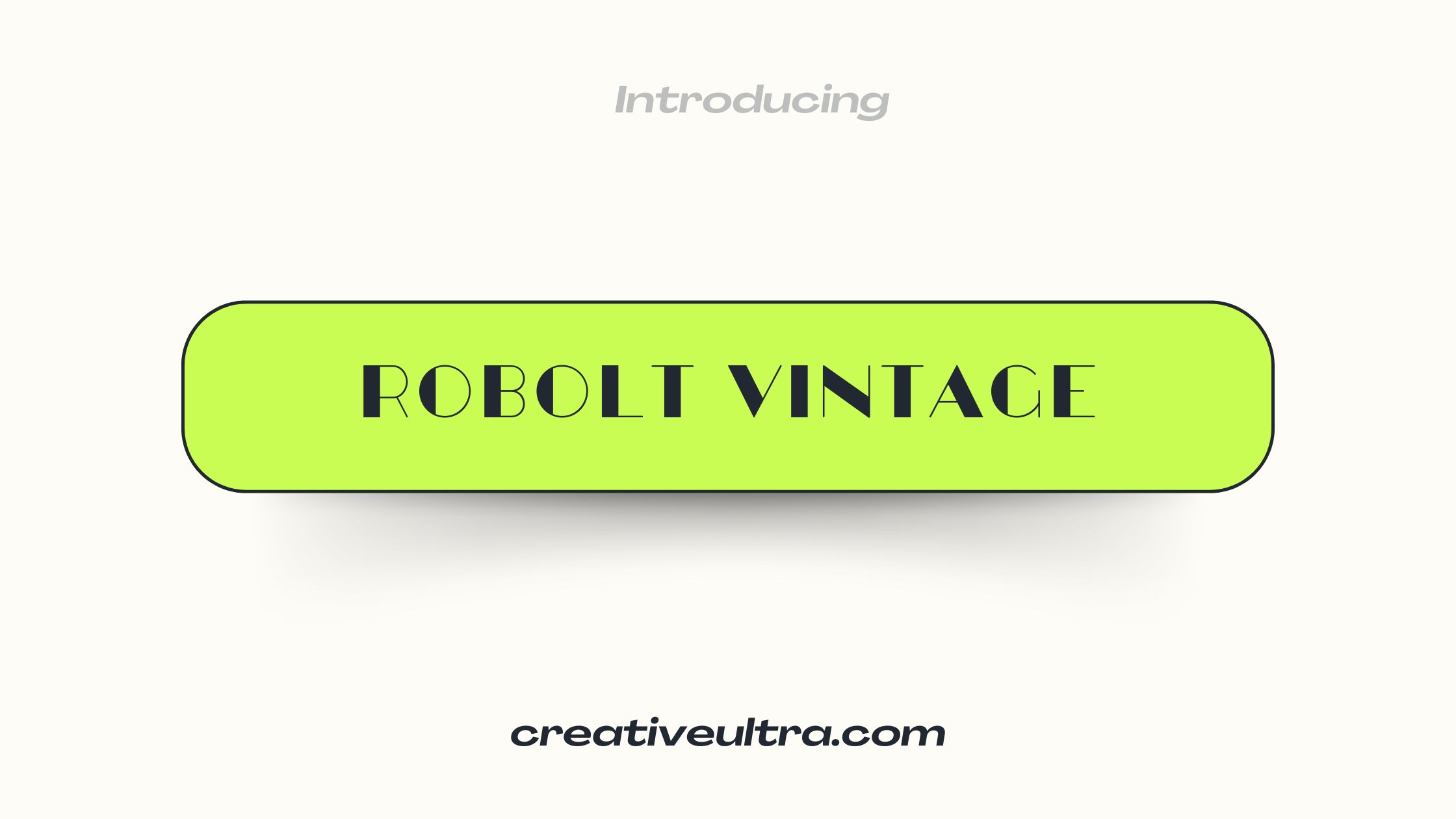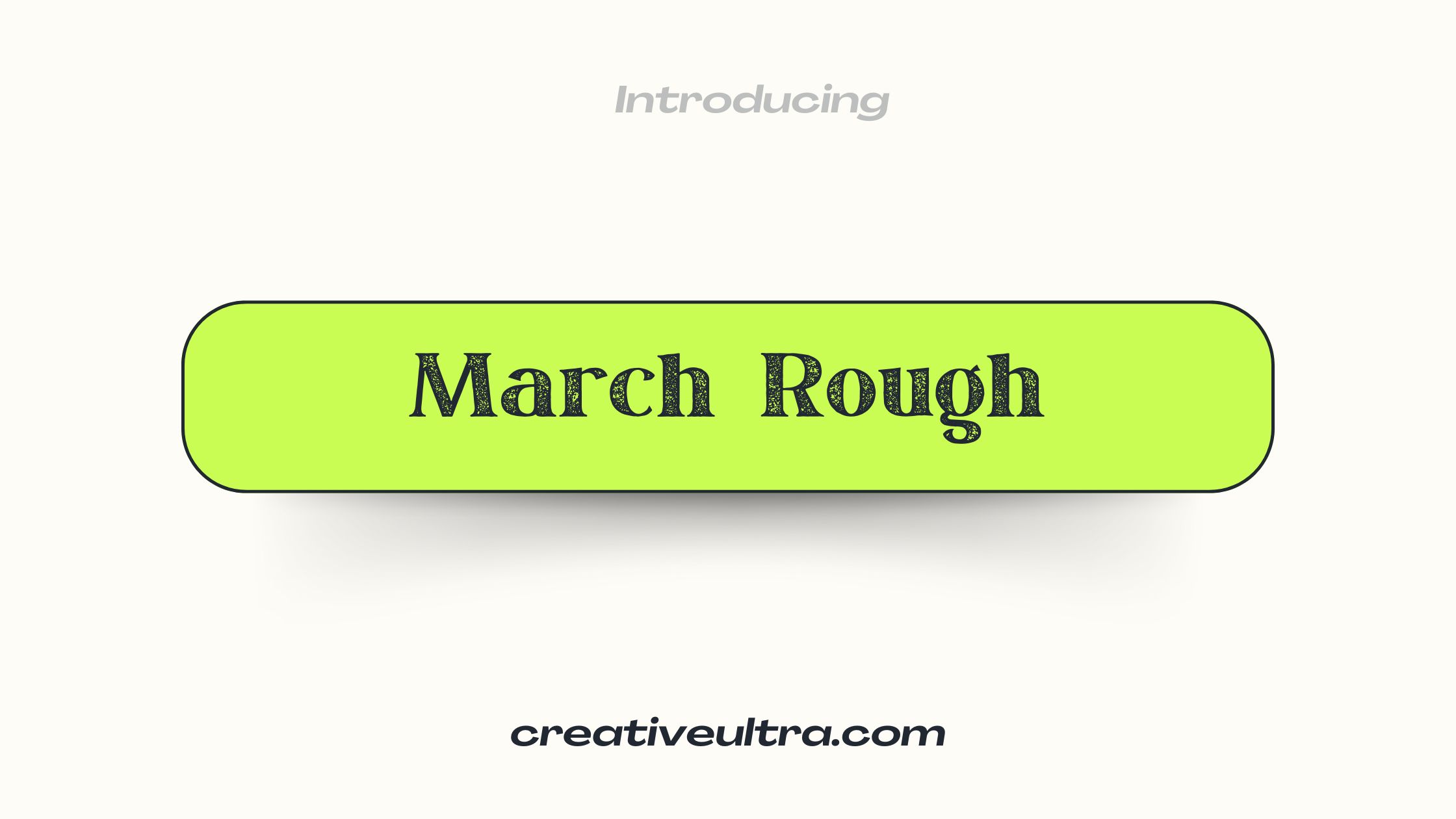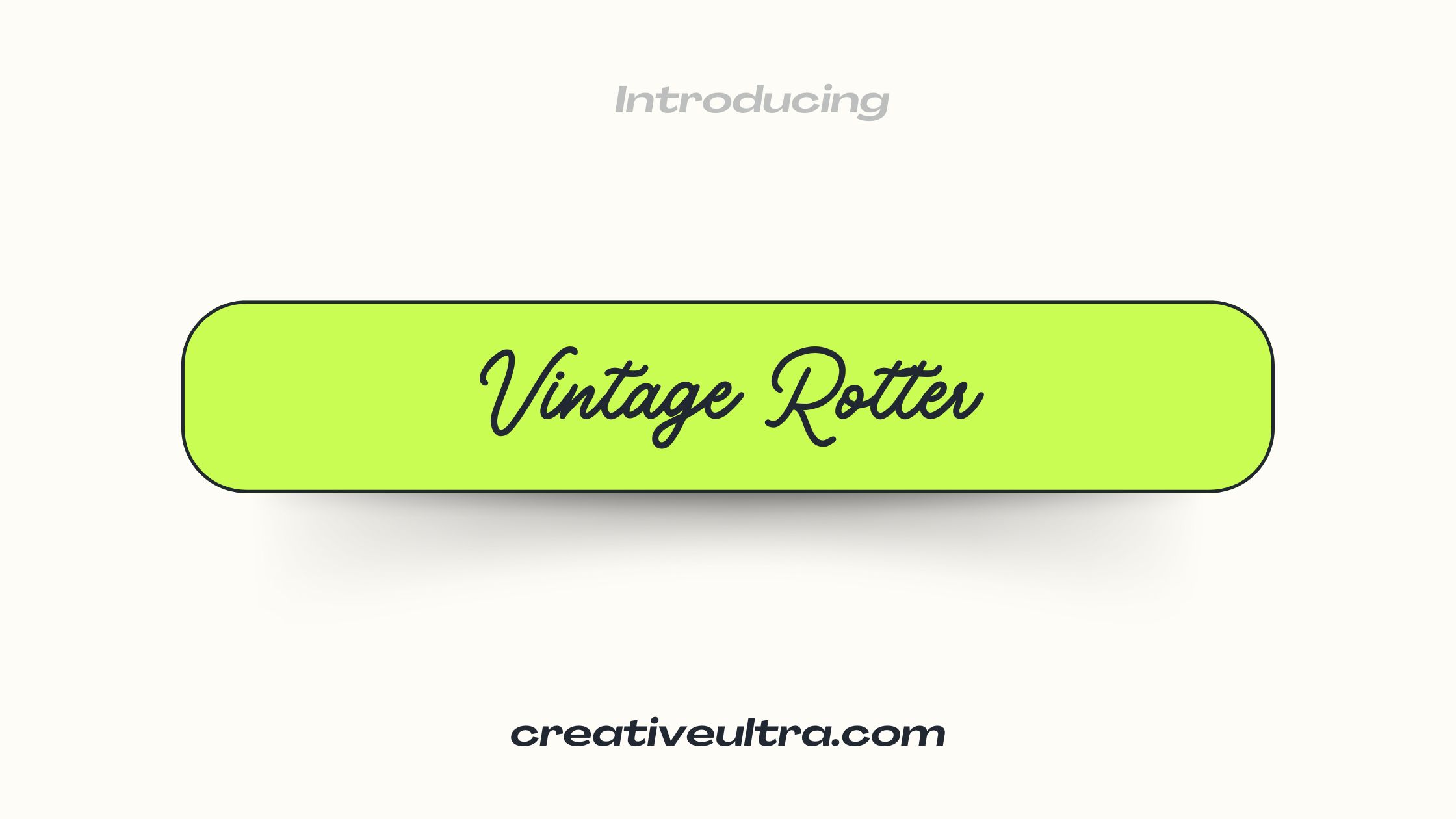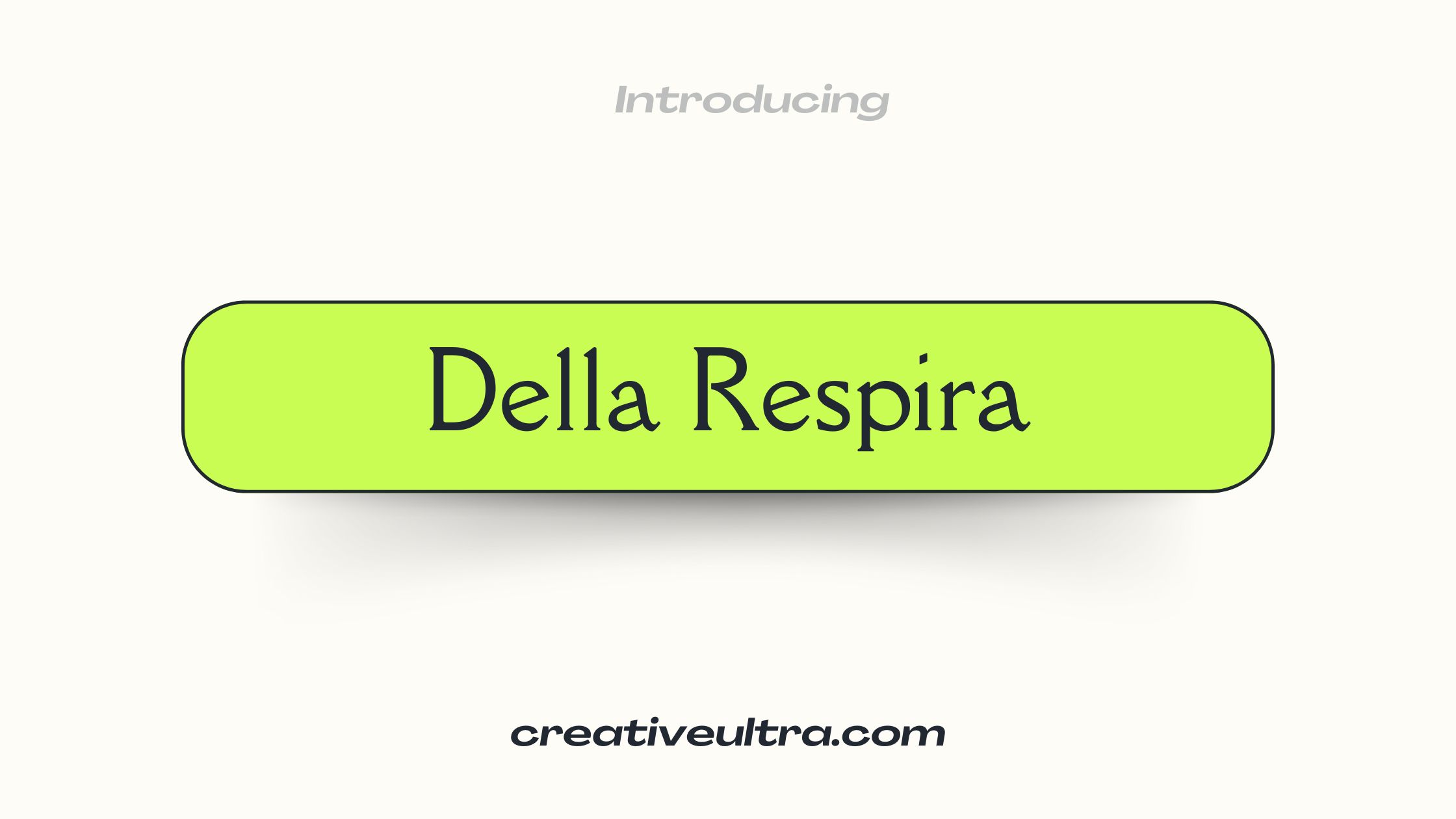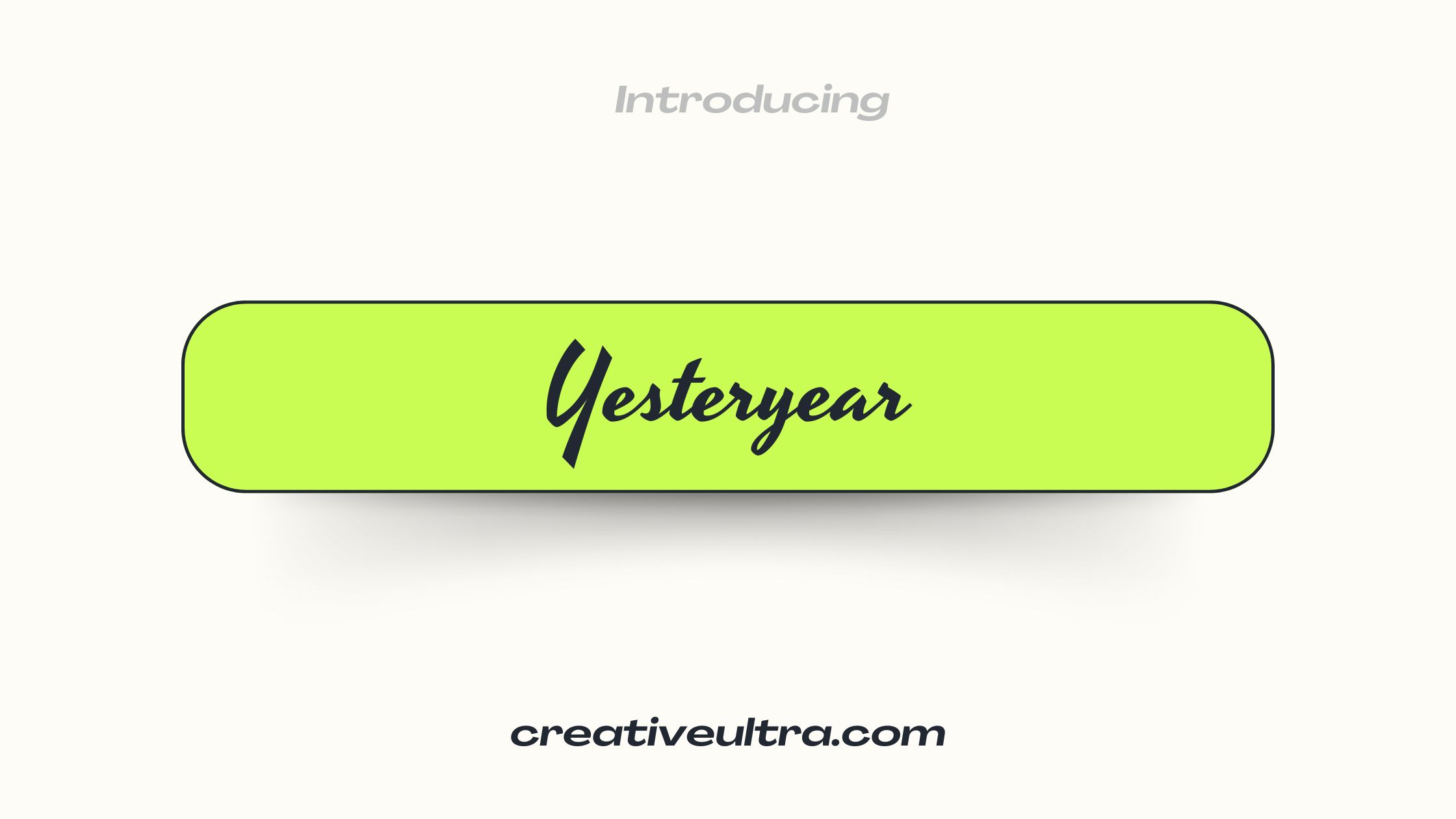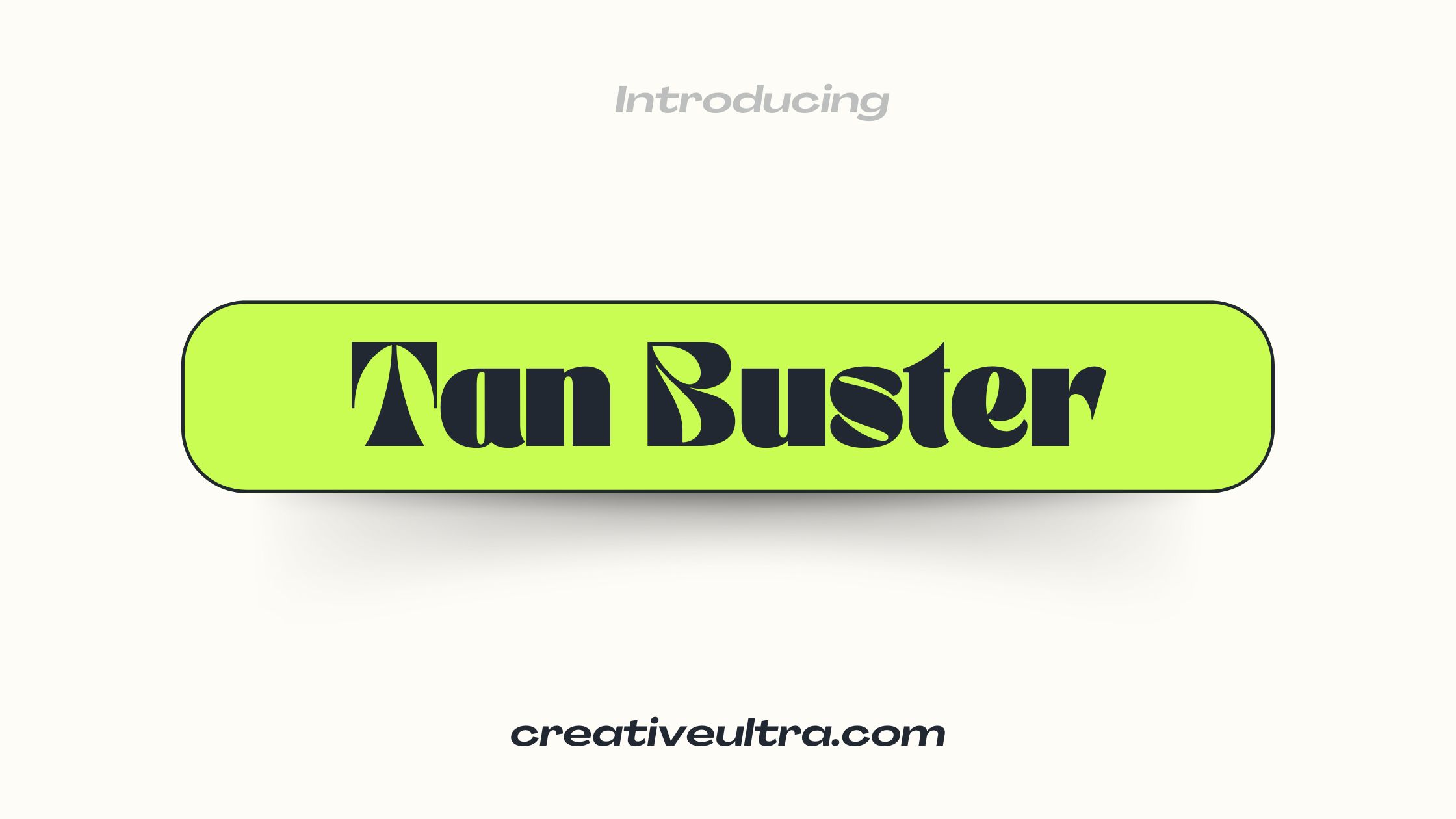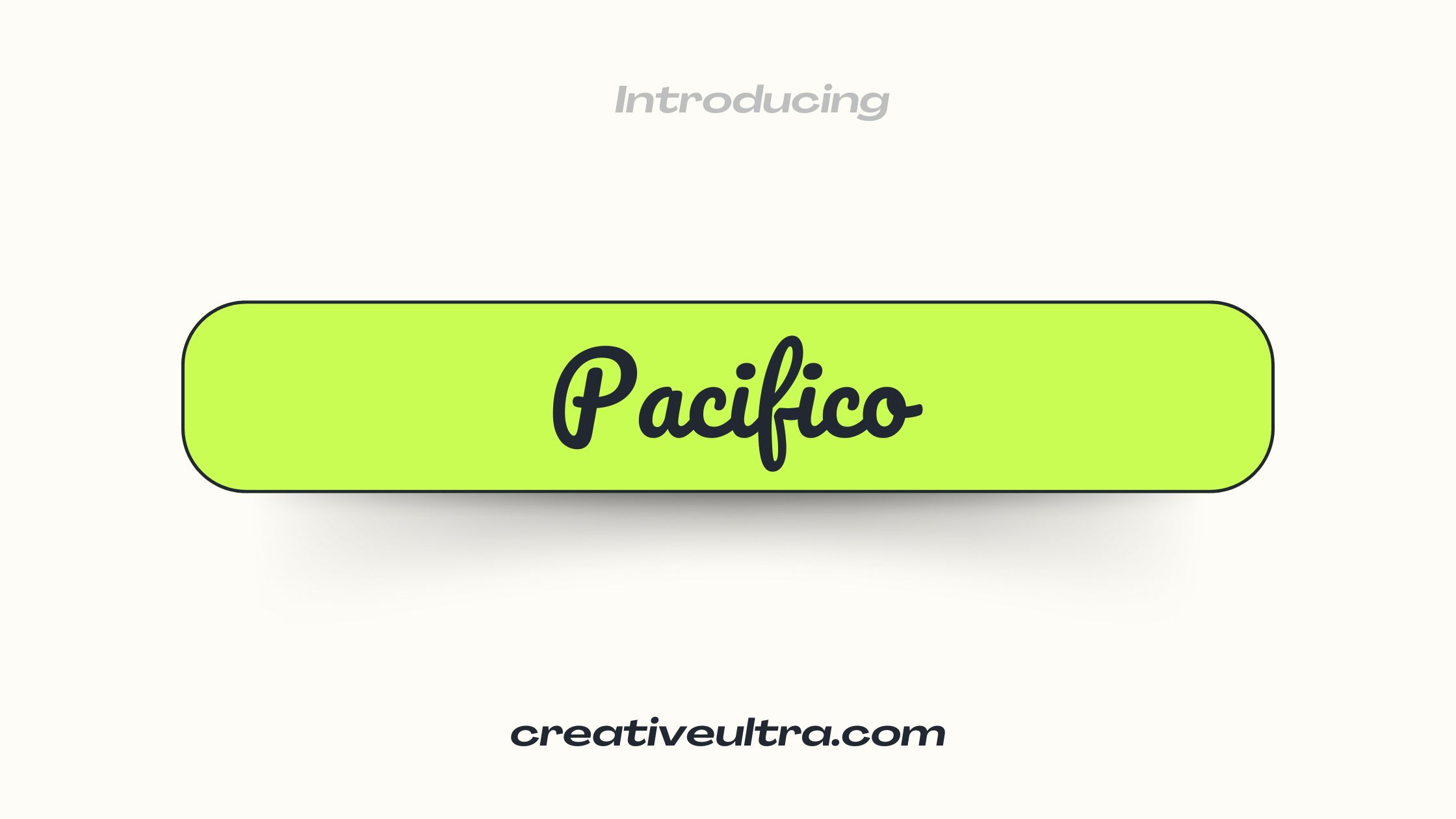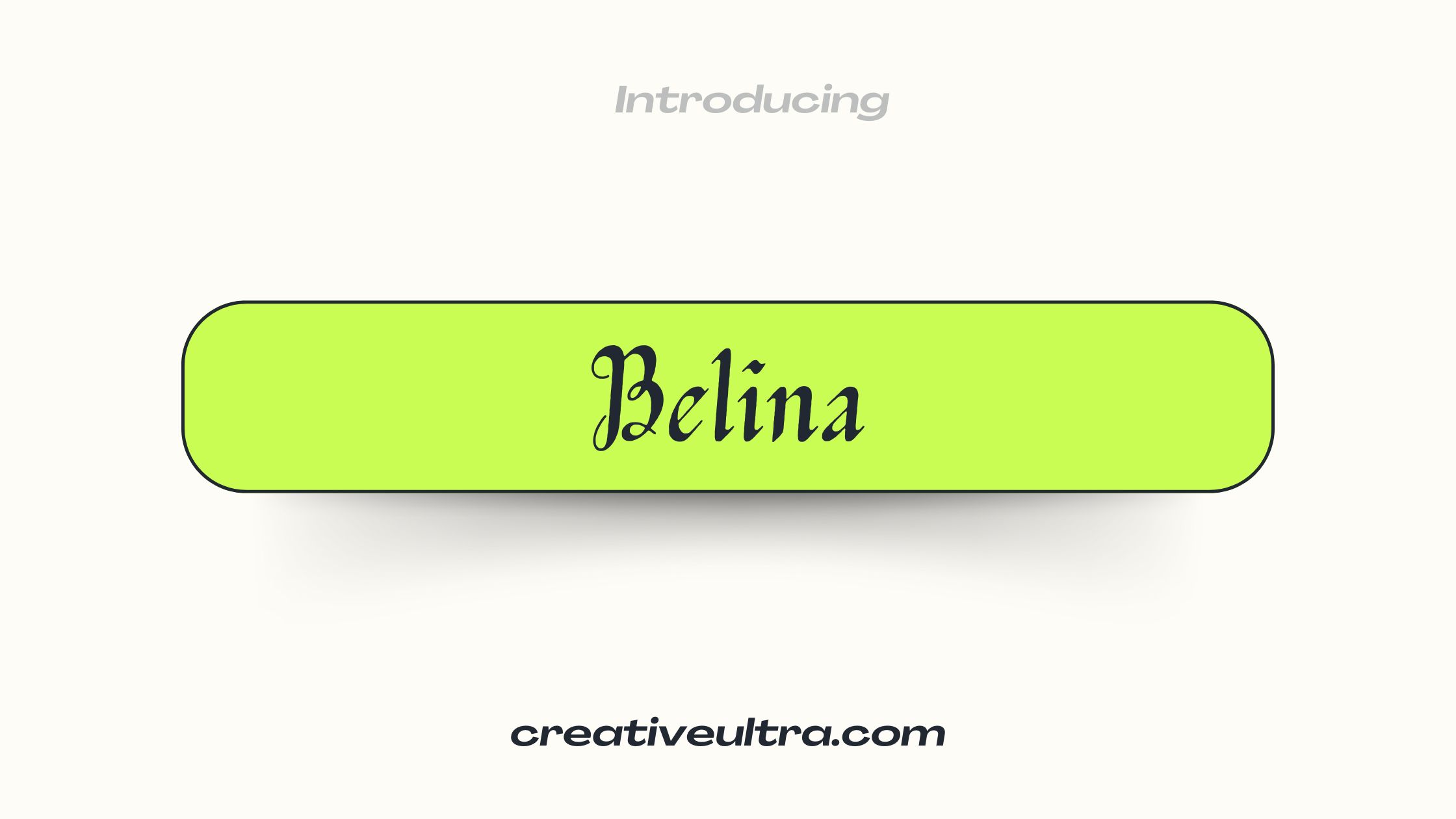
12 Vintage Fonts in Canva
Vintage fonts bring classic appeal to any design. Their unique style reflects the grandeur of the past, making vintage fonts perfect for creative projects. Canva has many beautiful vintage fonts in Canva to help your designs stand out.
Whether you’re working on invitations, posters or logos, these fonts can add character and personality to your creations. From elegant scripts to bold and classic typefaces, there’s something for every designer.
Here are 12 vintage fonts in Canva that we think you’ll love. Each has its own story and style, ready to make your projects unique and unforgettable. Let’s explore them together!
Classic Vintage Fonts in Canva
Robolt Vintage Font
Robolt is a strong and bold vintage font. It has sharp edges and a structured design that makes it great for eye-catching headlines. This font fits well in posters, banners, and retro designs. Its clean lines and confident look give your work a bold statement.
Vintage Rotter Font
Vintage Rotter has a handcrafted feel with soft curves and a rustic vibe. It’s perfect for old-school designs, from cafe menus to nostalgic posters. This font’s warm, vintage touch adds a cozy and classic look to your designs.
Della Respira Font
Della Respira is an elegant serif font with a vintage twist. Its thin strokes and classy design make it a great choice for logos and invitations. This font has a timeless charm that blends tradition with simplicity.
Yesteryear Font
Yesteryear is a stylish script font with smooth, flowing letters. Inspired by vintage signs, it’s perfect for adding a retro touch to your designs. It works beautifully in wedding cards, greeting cards, and decorative headlines.
Ethan Font
Ethan is a clean and modern vintage font with sharp, geometric details. It’s versatile and works for branding, packaging, and posters. Its balanced design brings a mix of old-school style and modern readability.
Tan Buster Font
Tan Buster is bold, quirky, and full of character. Its thick, rounded letters are great for playful vintage designs. Use it in retro-themed ads, social media posts, or book covers for a fun and standout look.
Pacifico Font
Pacifico is a smooth and cheerful script font. Its handwritten style gives a retro, friendly vibe. This font is great for personal projects, logos, or branding that needs a playful yet elegant feel.
Metropolis Font
Metropolis is a geometric sans-serif font inspired by the 1920s. It’s perfect for creating art deco designs, posters, or signage. Its clean, symmetrical letters give a sophisticated, vintage feel to your work.
Belina Font
Belina is a vintage calligraphy-style font with a soft and elegant look. Its flowing curves make it ideal for wedding designs, invitations, or anything that needs a touch of romantic vintage beauty.
Moonlight Font
Moonlight is a bold serif font with vintage flair. Its thick strokes and subtle curves make it perfect for logos, headlines, and posters. This font adds a dramatic yet classy touch to your designs.
March Rough Font
March Rough has a textured, rugged style with a retro vibe. It’s perfect for vintage badges, T-shirts, or outdoor-themed designs. The distressed details give it an authentic, old-school feel.
Germania One Font
Germania One is a gothic-inspired vintage font with sharp angles and bold lines. It’s perfect for headlines, posters, or branding that needs a bold, dramatic touch. Its classic style stands out and grabs attention.